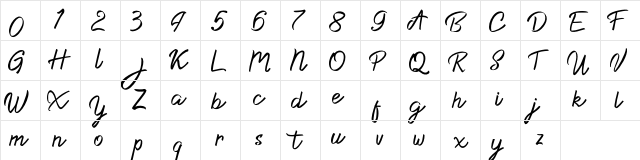
Dacilla Script Demo Regular
Design Context for Dacilla Script Demo Typeface
Dacilla Script Demo flows with the natural rhythm of handwritten lettering, making it ideal for designs that call for warmth and personal expression.
Font Pairing: Combine Dacilla Script Demo with a simple geometric sans for maximum contrast — the tension between flowing curves and clean structure is a classic typographic pairing.
Pro Tip: Use Dacilla Script Demo for short runs of text — names, titles, or taglines. Extended body copy in script faces tires the eye quickly.